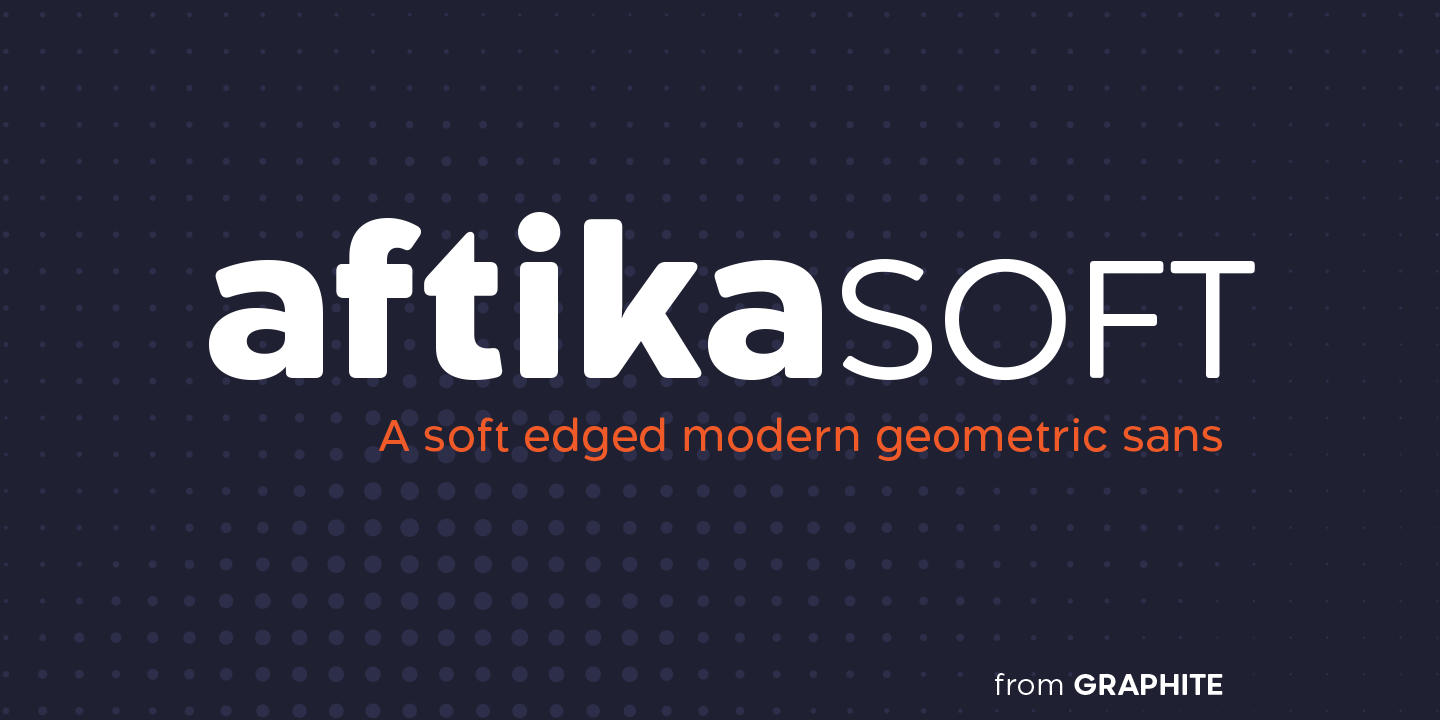
Aftika Soft Font is perfect for African cultural center branding, gentle children's book illustrations, soft wellness spa signage, nurturing healthcare materials, compassionate charity organizations, warm community center designs, tender childcare facilities, and caring design projects that require gentle typography with African warmth character and soft compassionate sophistication.
This Aftika Soft Font is exciting because it embodies the gentle spirit and warm embrace of African hospitality with soft, rounded letterforms that convey comfort and inclusivity, featuring tender character construction that reflects the caring nature of African community traditions while maintaining excellent readability for nurturing applications and compassionate communications.
The Aftika Soft Font family includes gentle weights with compassionate styling, complete character sets with warm uppercase and lowercase letters, caring numerals, soft punctuation, and community symbols that provide comprehensive typography solutions for African cultural and wellness design projects requiring authentic soft aesthetics and nurturing appeal.
Perfect for creating compassionate communications and warm community brand identities, Aftika Soft Font Free Download delivers the gentle typography that transforms text into tender expressions of African warmth and community care. This distinctive typeface captures the essence of African hospitality and communal spirit, making it essential for projects celebrating African culture, community wellness, compassionate care, and any design requiring gentle character with authentic African sophistication and timeless nurturing appeal that embraces everyone with warmth and kindness.